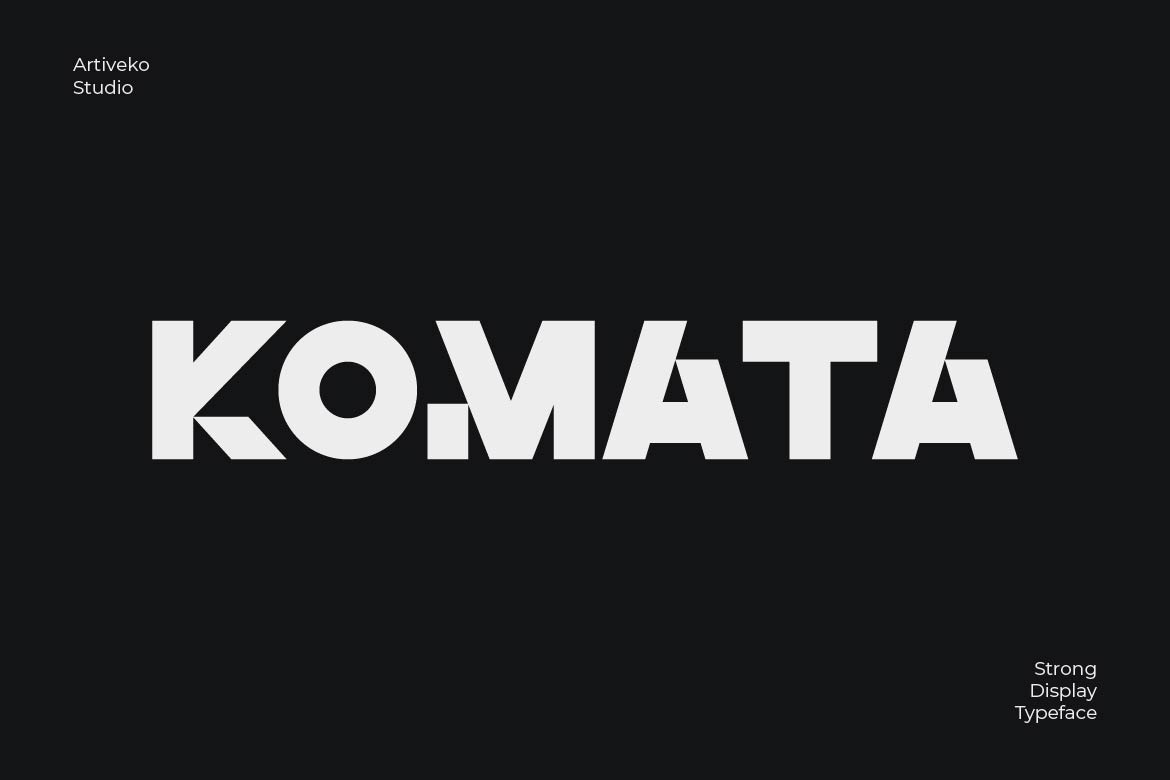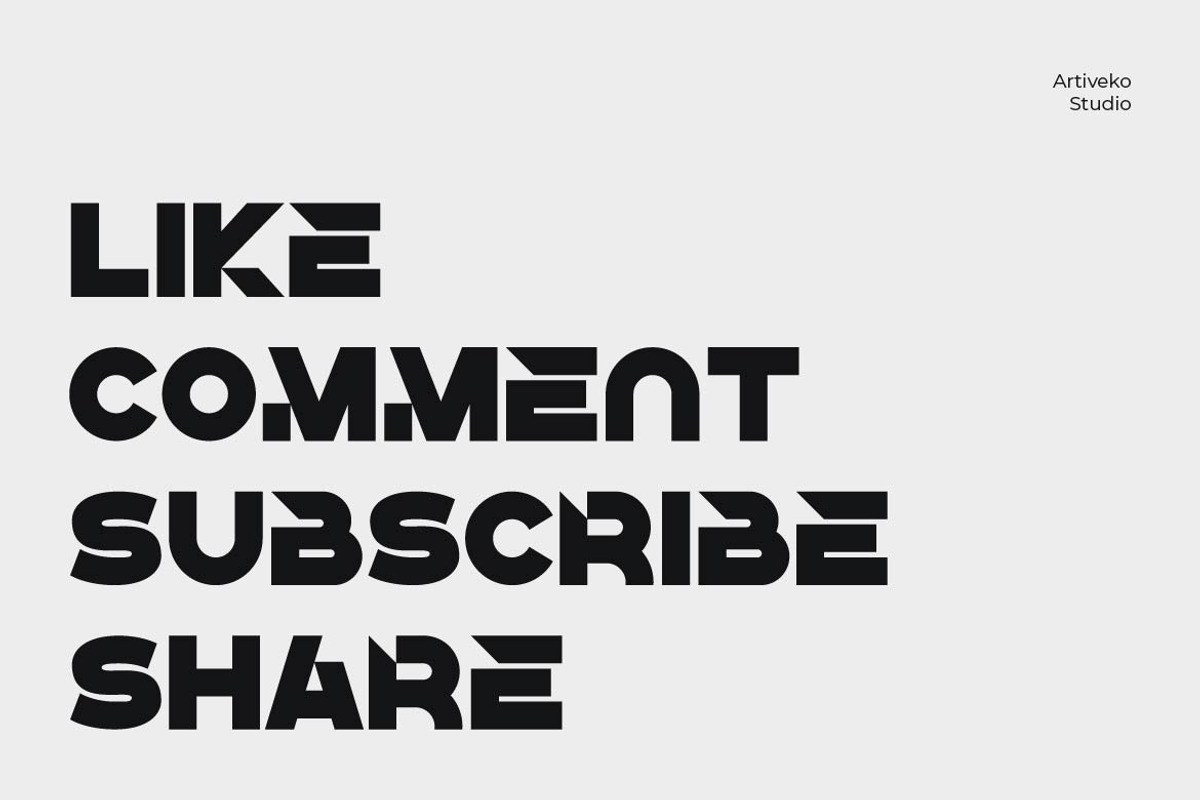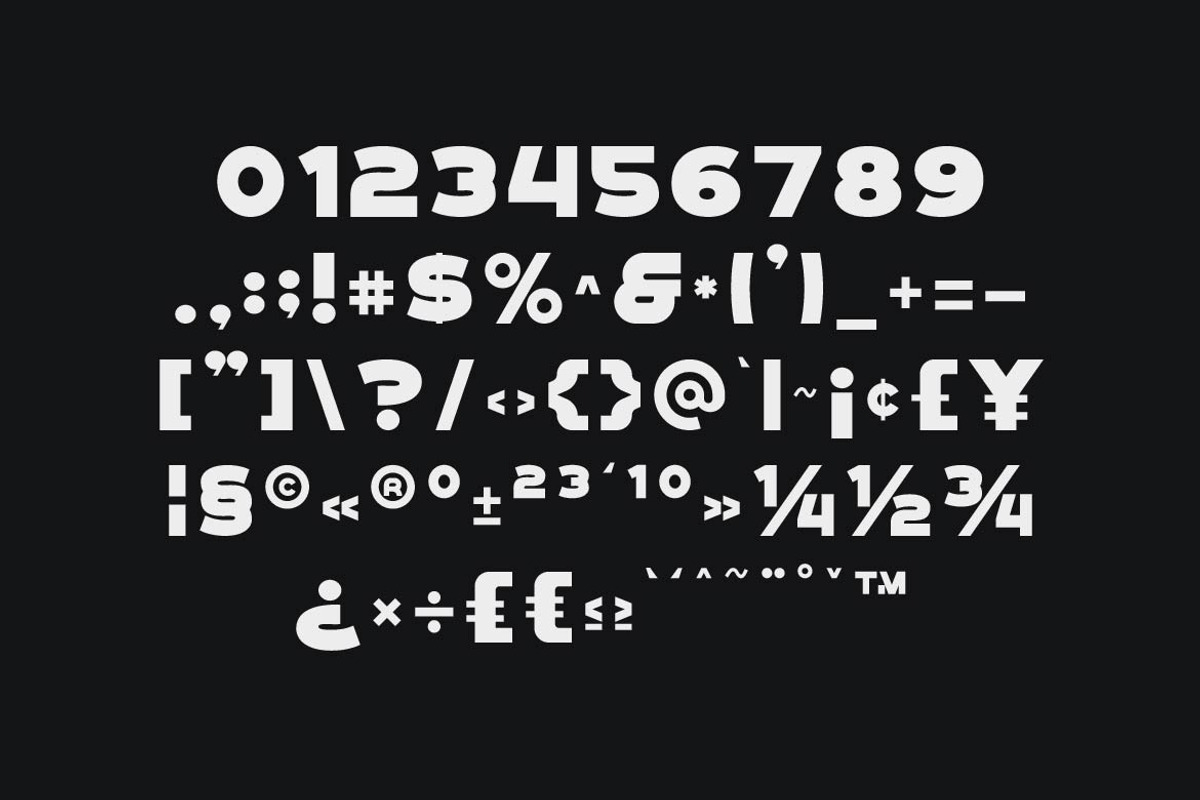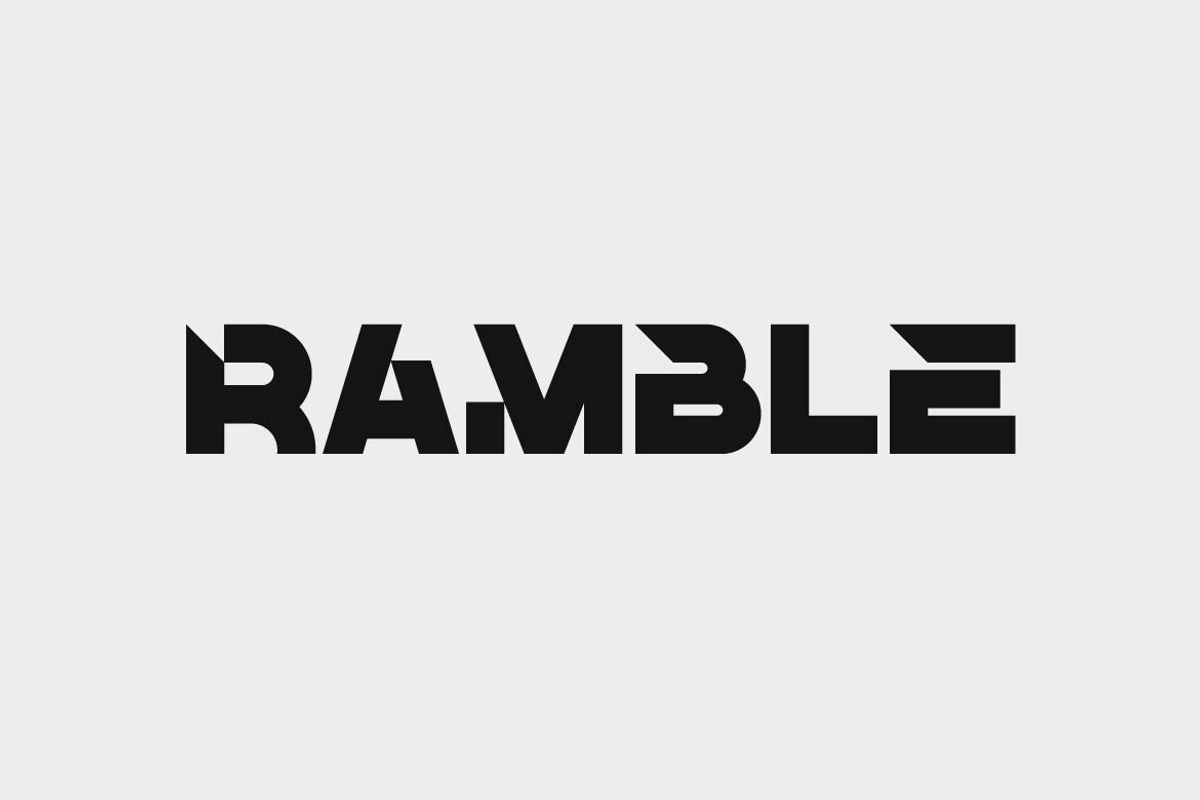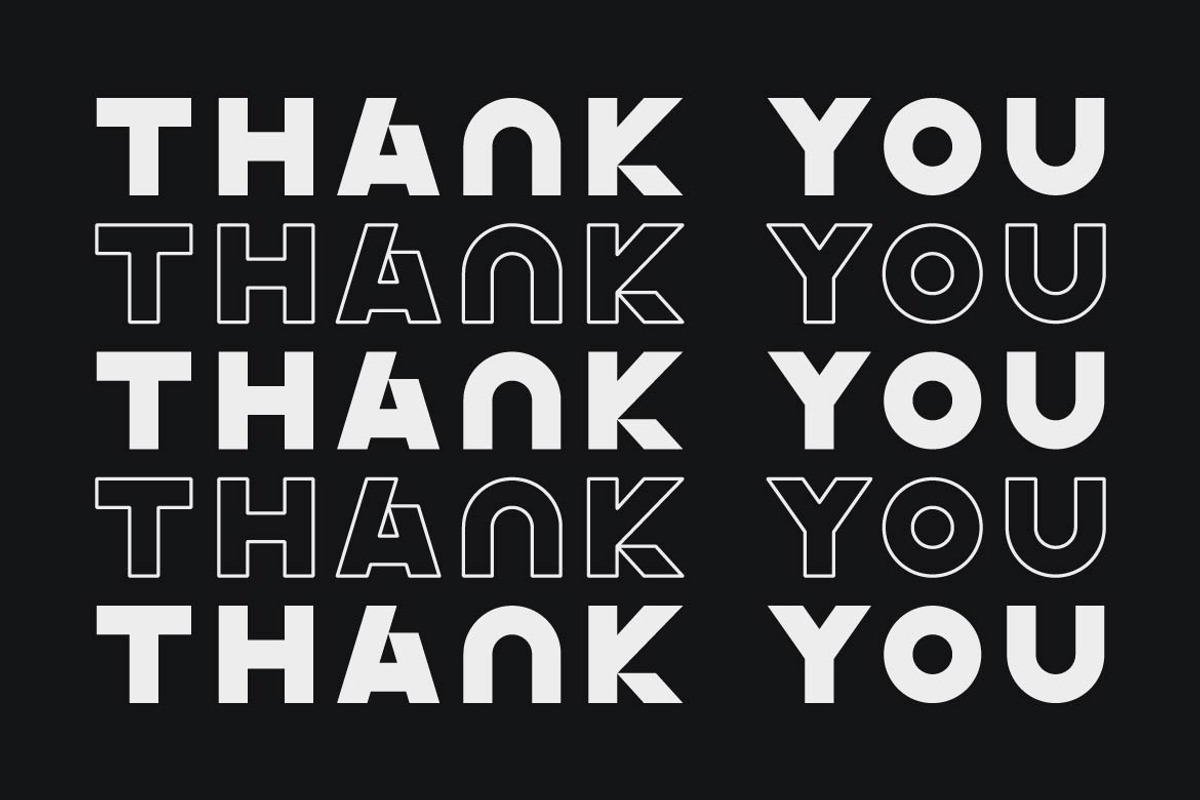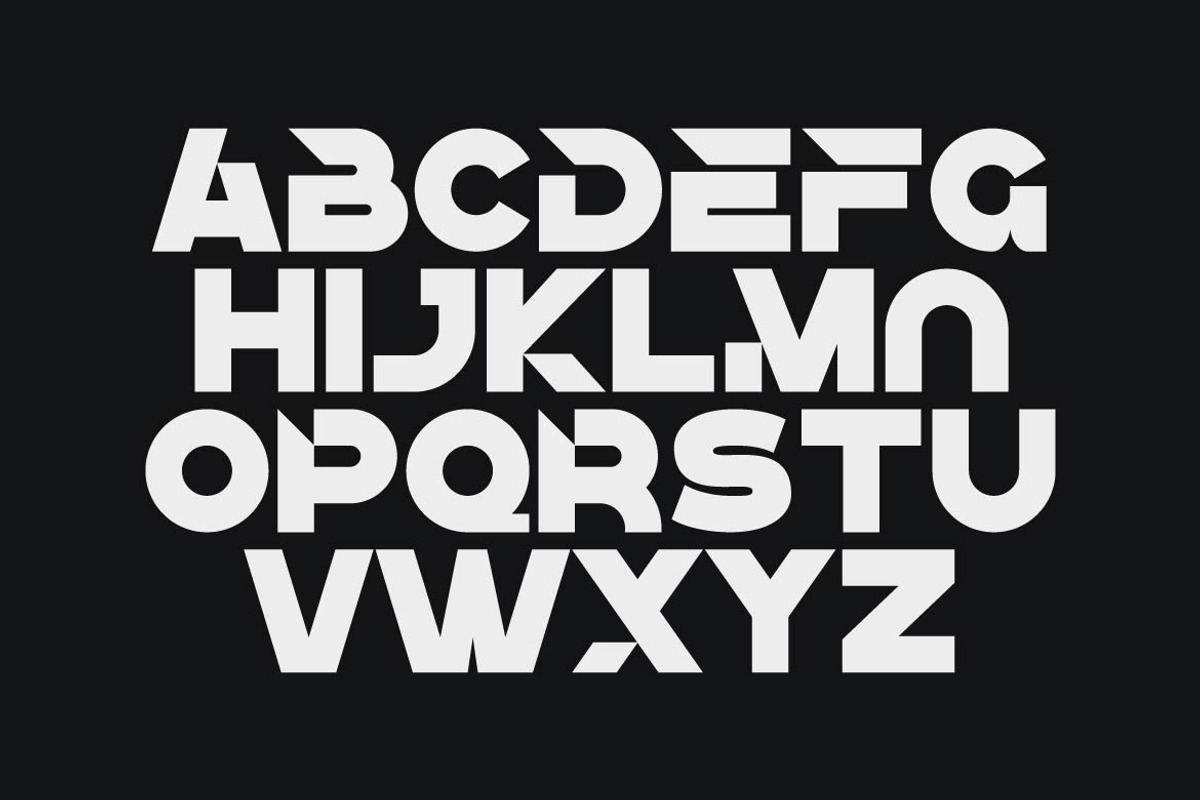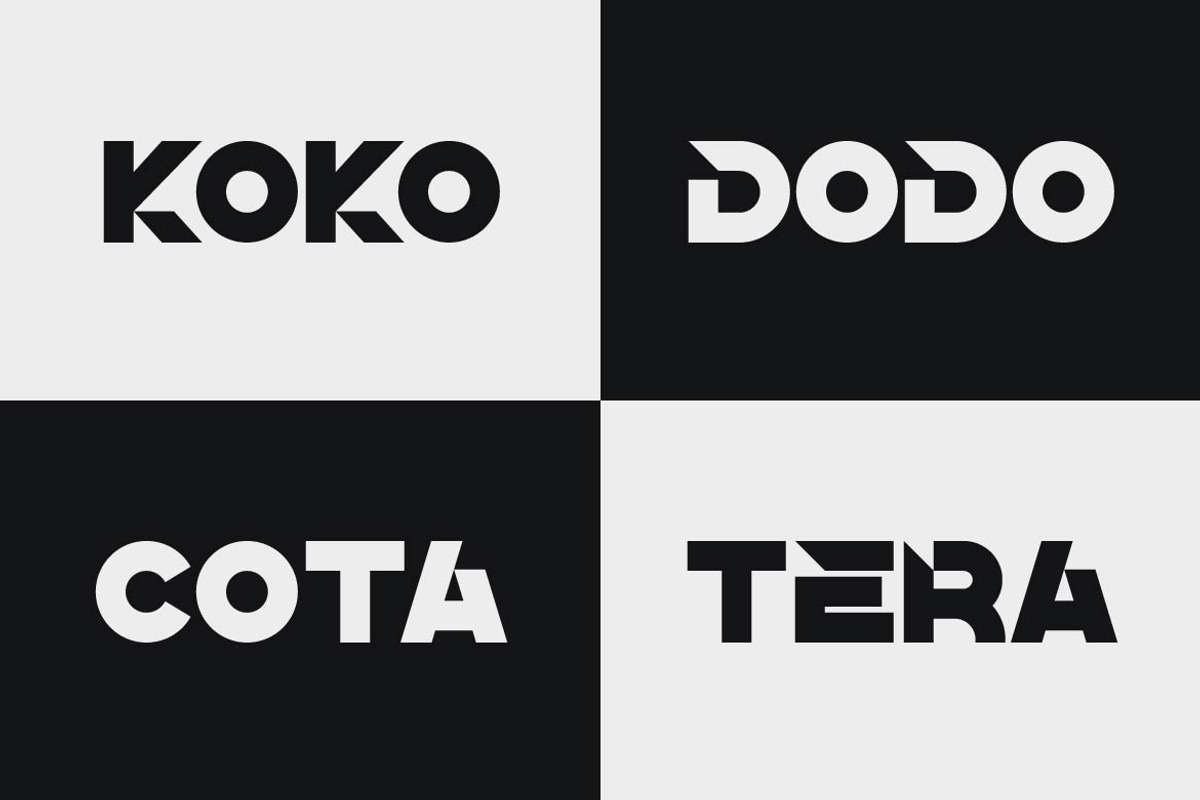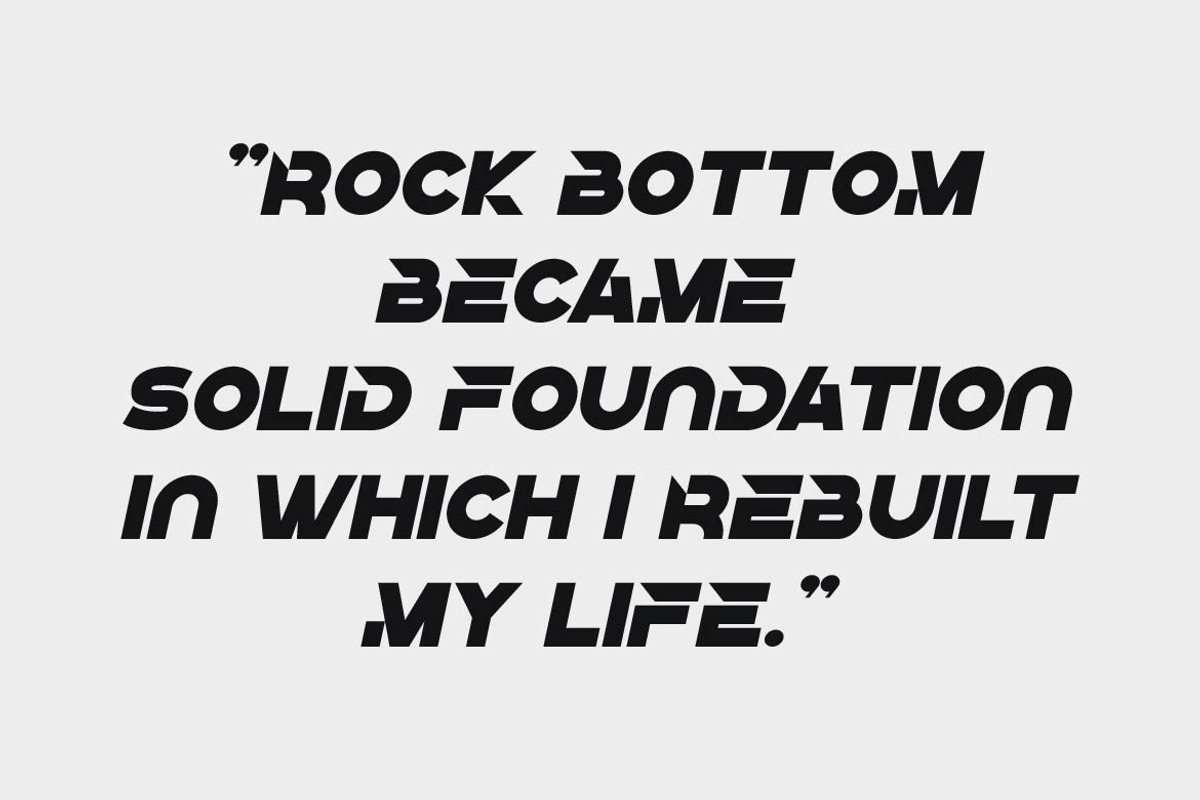
Komata – Bold Geometric Display Font
Komata is a bold display typeface designed to create strong, confident, and modern visual impact. With solid letterforms, clean geometry, and balanced proportions, Komata delivers powerful typography that stands out in any composition.